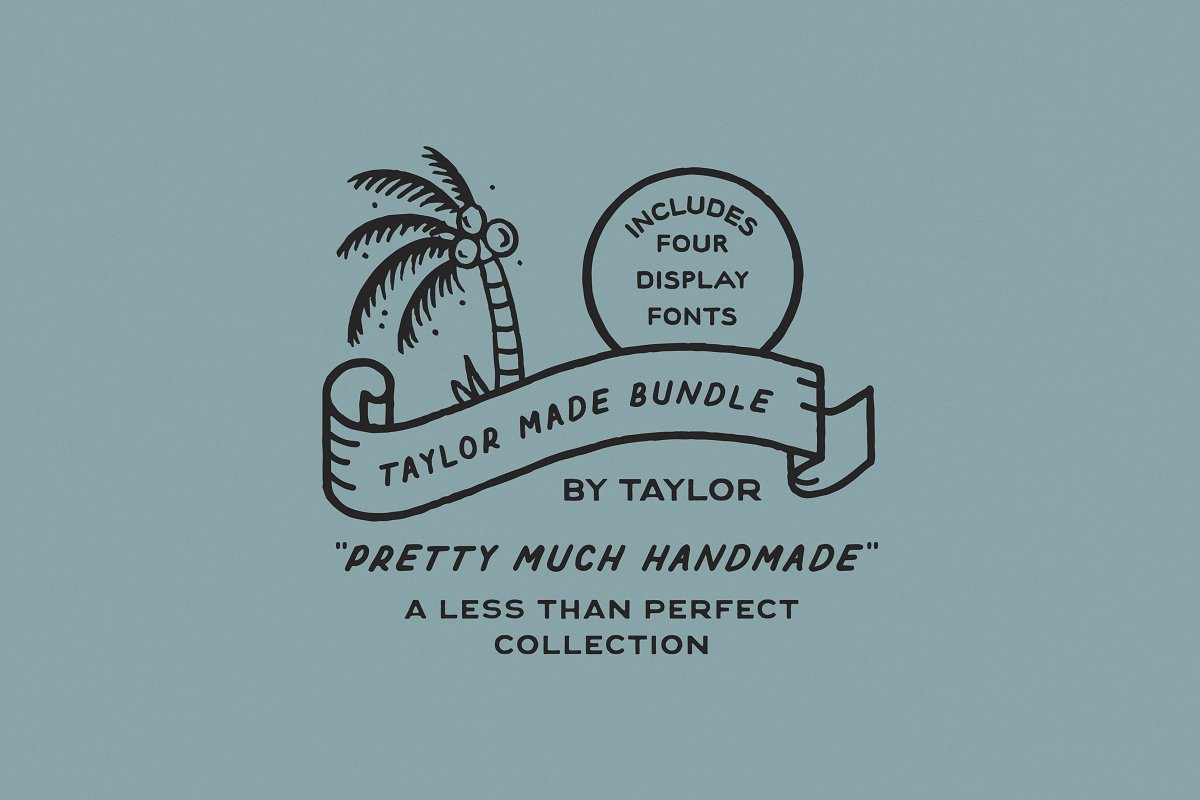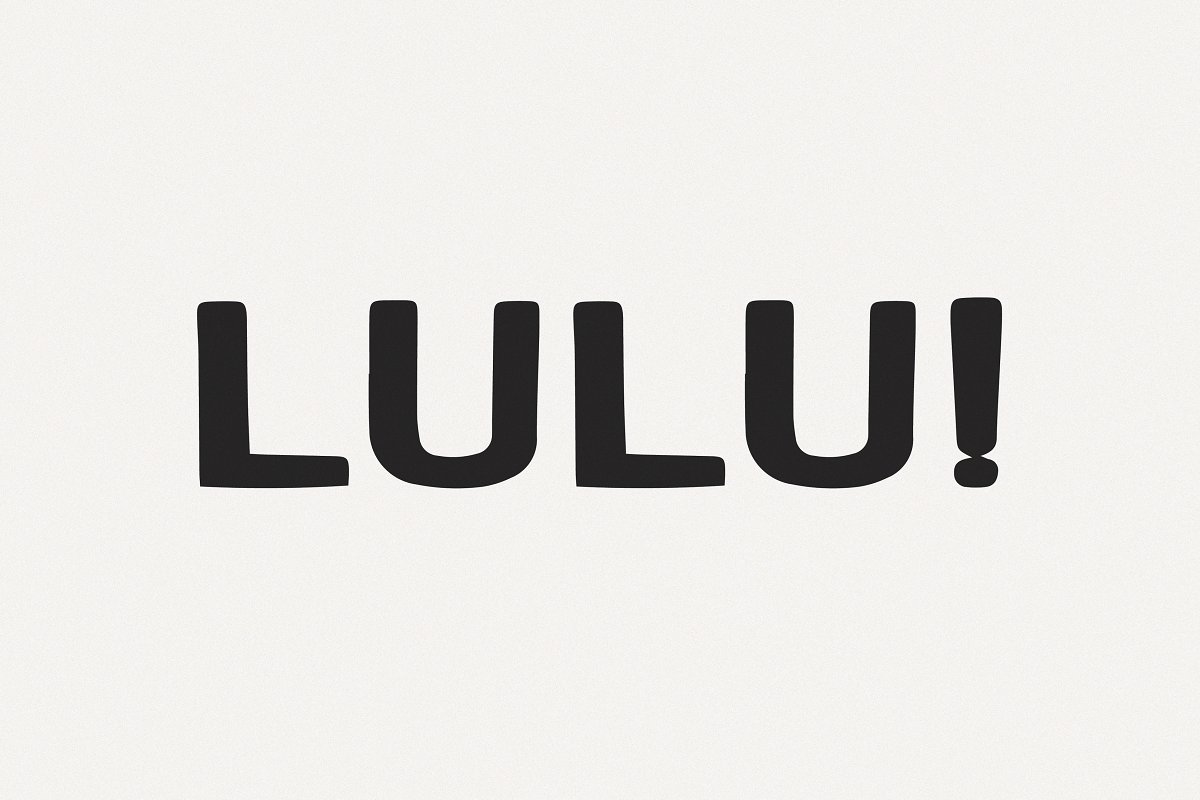
About the Taylor Made Font Bundle
A small collection of handmade display typefaces, Each font contains full A-Z lettering, numbers 0-9, and basic punctuation, These are each drawn by hand and have their own unique characteristics, Perfect for logo type, badge design, and anything else that could use an authentic touch, More here: taylorpenton, com/fonts